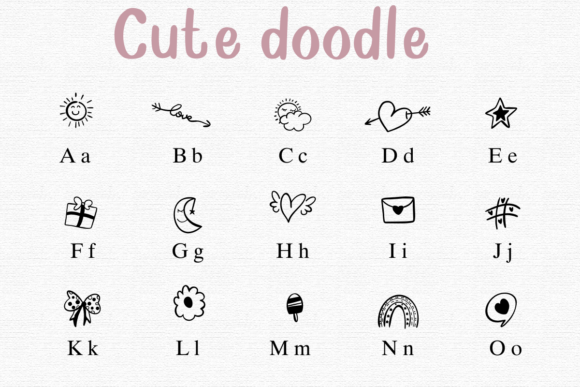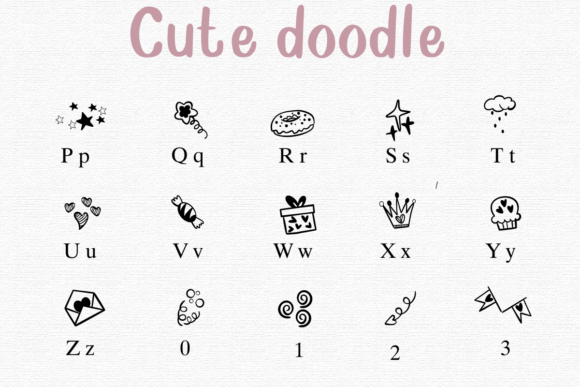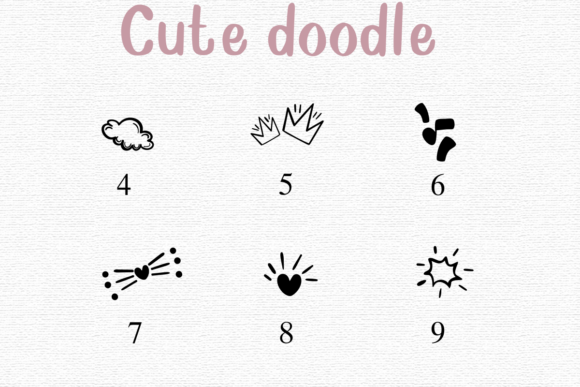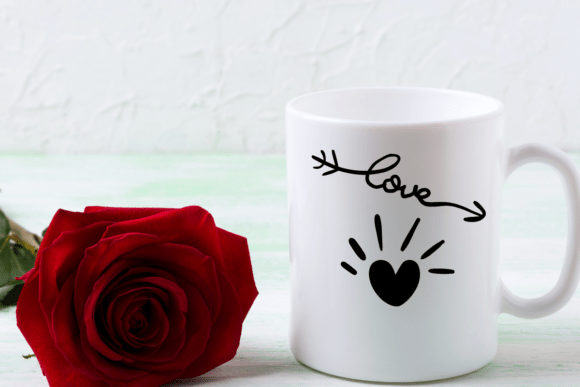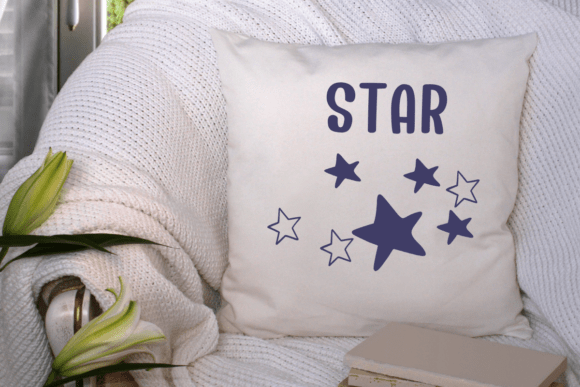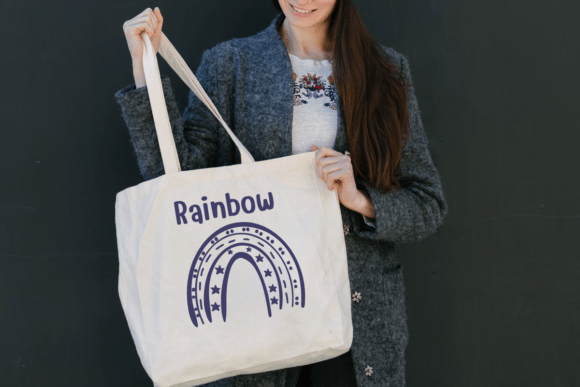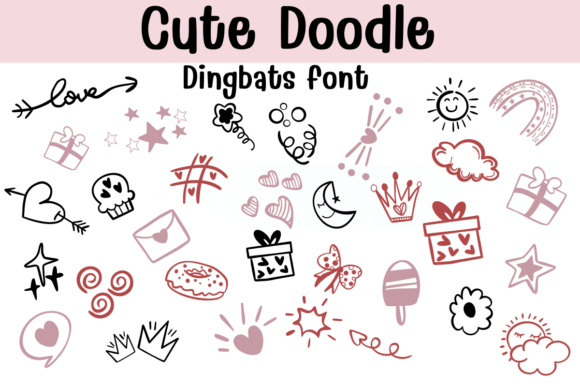
Cute Doodle Font: Add a Dash of Whimsy to Your Designs
Are you looking for a font that can add a touch of playfulness and charm to your digital stickers, scrapbooking, planner designs, and branding? Look no further than the Cute Doodle Font! This fun and eclectic dingbats font is packed with hand-drawn doodles that are sure to delight designers and crafters alike.
What is Cute Doodle Font?
Cute Doodle Font is a unique and versatile font that features a wide range of hand-drawn doodles, including hearts, crowns, sweets, stars, and more. This font is perfect for anyone who wants to add a dash of whimsy to their designs, whether it’s for a digital sticker, scrapbooking project, or branding campaign.
Key Features of Cute Doodle Font
- Hand-drawn doodles: Each character in the Cute Doodle Font is carefully hand-drawn to ensure a unique and playful look.
- Wide range of designs: The font includes a wide range of doodles, from hearts and stars to crowns and sweets, giving you plenty of options to choose from.
- Perfect for digital stickers: The Cute Doodle Font is ideal for creating digital stickers that are perfect for scrapbooking, planner designs, and other craft projects.
- Great for scrapbooking and planner designs: The font’s playful and whimsical design makes it perfect for scrapbooking and planner designs that need a touch of personality.
- Suitable for girly branding: The Cute Doodle Font is also perfect for branding campaigns that need a feminine and playful touch.
Uses for Cute Doodle Font
The Cute Doodle Font is incredibly versatile and can be used for a wide range of projects, including:
- Digital stickers: Create custom digital stickers for scrapbooking, planner designs, and other craft projects.
- Scrapbooking: Add a touch of whimsy to your scrapbooking projects with the Cute Doodle Font.
- Planner designs: Use the font to create custom planner designs that are both functional and visually appealing.
- Girly branding: Add a feminine and playful touch to your branding campaigns with the Cute Doodle Font.
- Social media graphics: Use the font to create engaging social media graphics that are sure to stand out.
Tips for Using Cute Doodle Font
Here are a few tips for getting the most out of the Cute Doodle Font:
- Experiment with different colors: The Cute Doodle Font looks great in a variety of colors, so don’t be afraid to experiment and find the perfect hue for your project.
- Mix and match doodles: The font includes a wide range of doodles, so try mixing and matching different characters to create a unique look.
- Use it with other fonts: The Cute Doodle Font pairs well with other fonts, so try using it with a bold or script font to add contrast to your design.